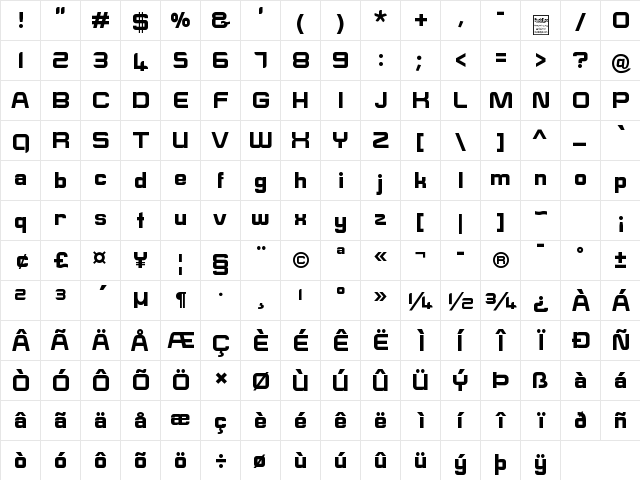
E-SQUARE Regular
| Foundry | StudioTypo |
| Designer | Mehmet Abac |
Design Context for E-SQUARE Typeface
E-SQUARE takes a measured approach to typography — its balanced proportions and neutral character make it a reliable workhorse for both digital and print work.